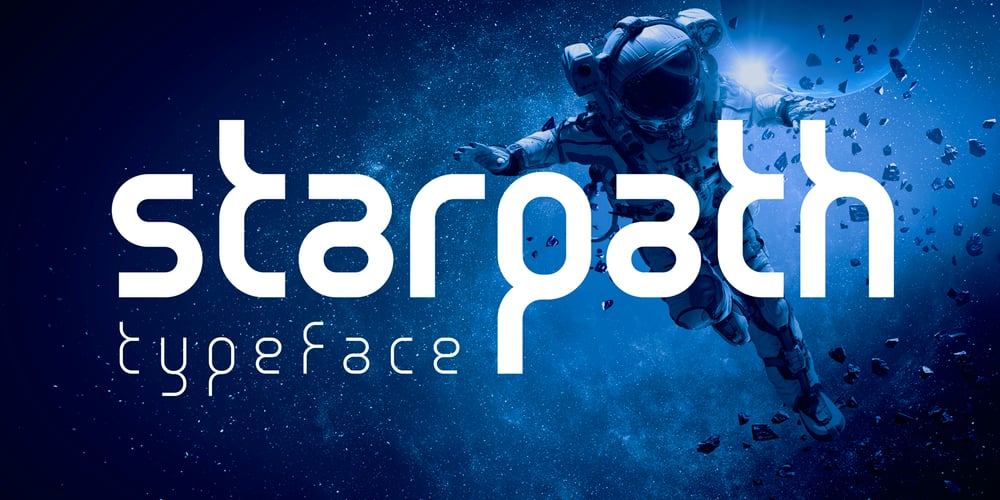
Starpath Font Family was designed by Asen Tiberiy Baramov and published by NoCommenType. Starpath contains 7 styles and family package options. The creation of the Starpath typeface was inspired by the inscriptions on alien spaceships in films such as District 9. As every typographer knows, the form of each letter is subject of the historical logic, of the materials used to write and on which it is written or printed. The form is also determined even by the use of writing. The development of the font is the result of literally thousands of years of human practice and the history of human society. In other words – the font is developed by Man. And what would happen if another logic of design, of building the shape of the letter were sought? A logic that goes beyond the logic of human practice. Starpath was created as one possible answer to this question.